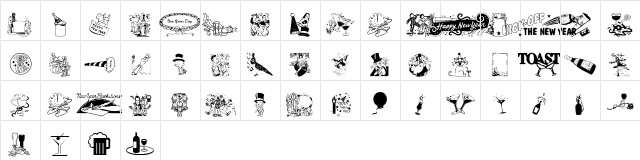
NewYearBats Regular
Design Context for NewYearBats Typeface
NewYearBats is a composed and adaptable typeface that performs quietly and consistently across a wide range of design contexts.